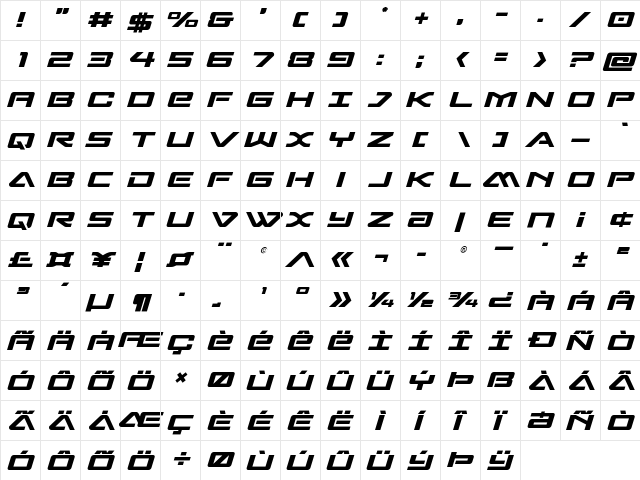
Sabre Shark Semi-Straight Regular
Design Context for Sabre Shark Semi-Straight Typeface
Sabre Shark Semi-Straight is a composed and adaptable typeface that performs quietly and consistently across a wide range of design contexts.